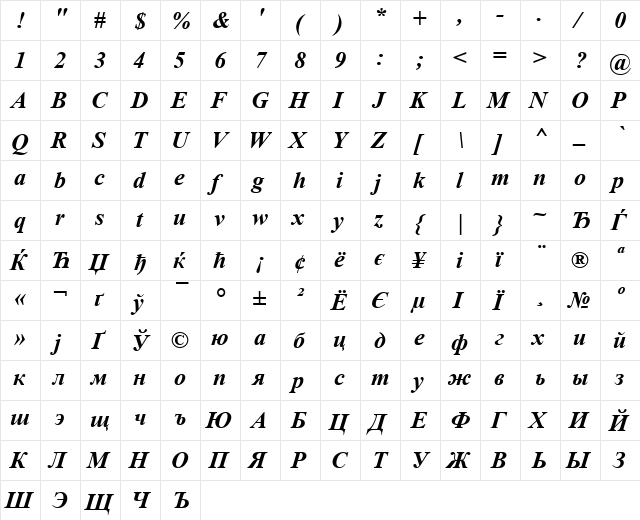
Times New Roman KOI8 Bold Italic Font Preview
| Designer | Monotype Type Drawing Office - Stanley Morison, Victor Lardent 1932 |
Design Context for Times New Roman KOI8 Typeface
Times New Roman KOI8 offers clean, dependable letterforms without strong stylistic allegiance, making it a practical choice for designers who need flexibility. Its italic angle brings a sense of urgency and motion to the letterforms. The heavy weight commands attention and anchors typographic hierarchies.
Pro Tip: Use Times New Roman KOI8 for emphasis, pull quotes, and subheadings where its slanted energy can add rhythm to the layout.